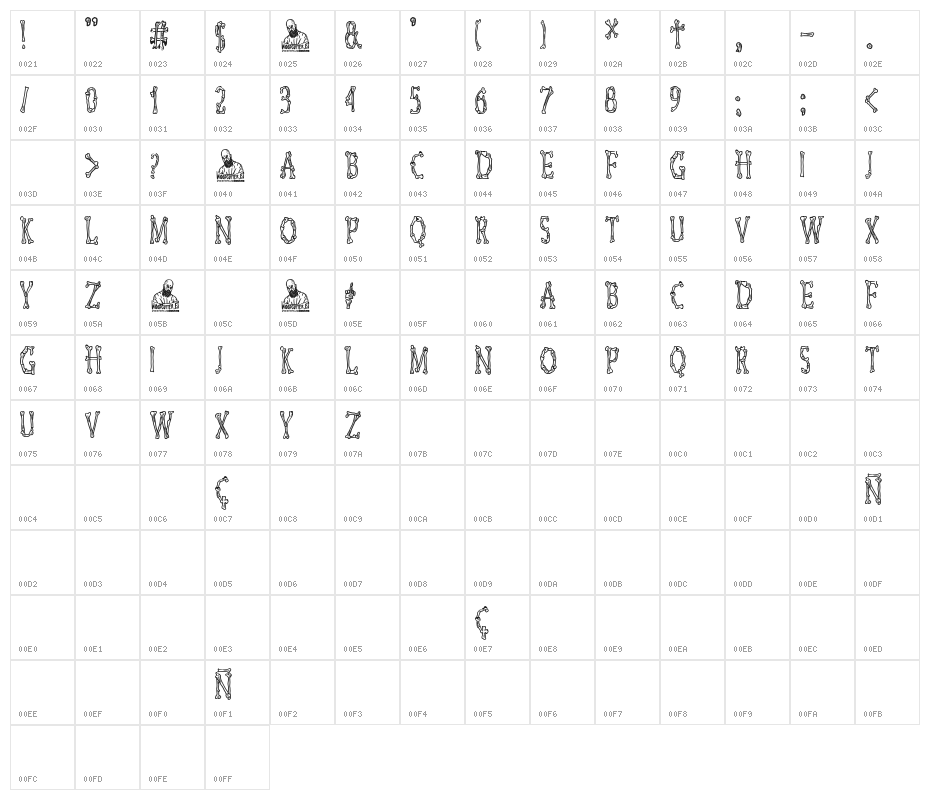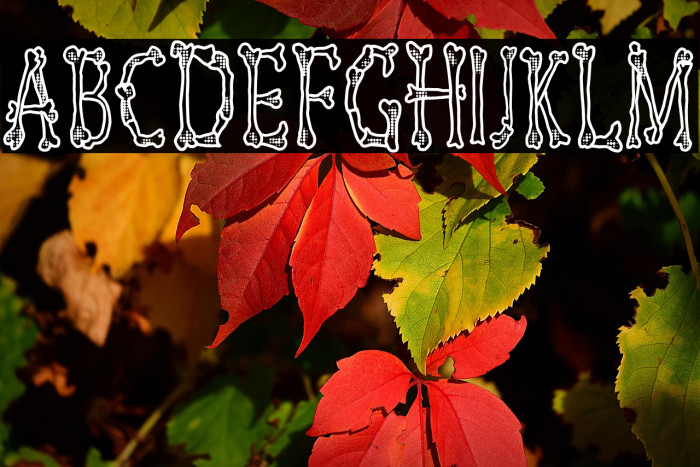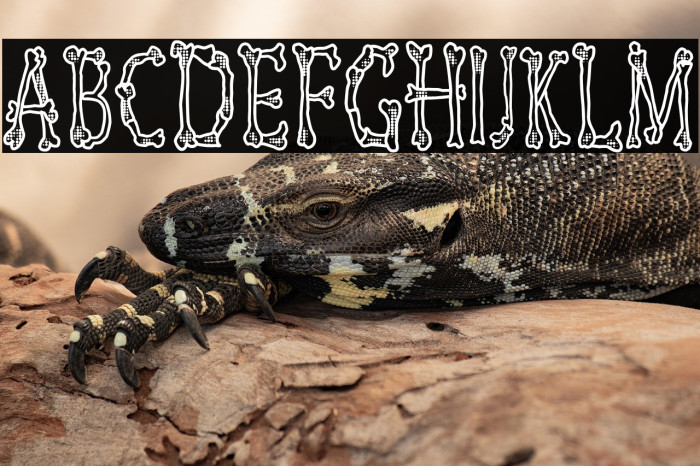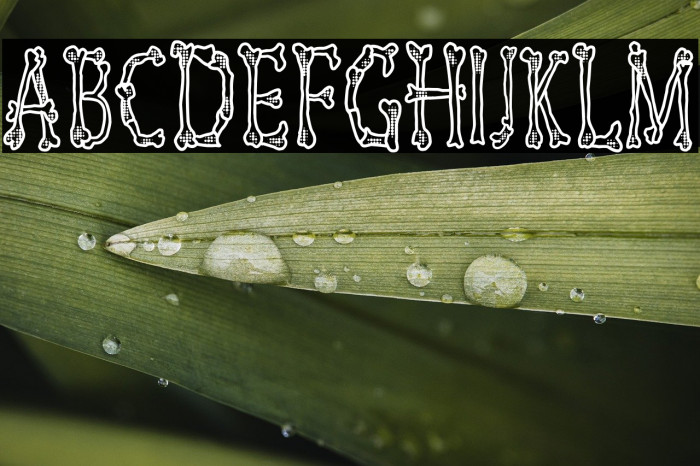
Skeletor Funny Font
Skeletor Funny Description
This font features a unique and playful design, with each character resembling a skeleton or bone structure. The letters are crafted with a whimsical touch, making them appear as if they are constructed from bones, complete with joints and irregular edges. The style is highly decorative and eye-catching, perfect for themes related to Halloween, horror, or anything requiring a spooky or humorous twist. The font maintains a consistent skeletal theme across uppercase, lowercase, numbers, and special characters, ensuring a cohesive look in any design project.
Proposed ProjectsIdeal for Halloween invitations, horror-themed posters, children's spooky storybooks, and novelty merchandise.